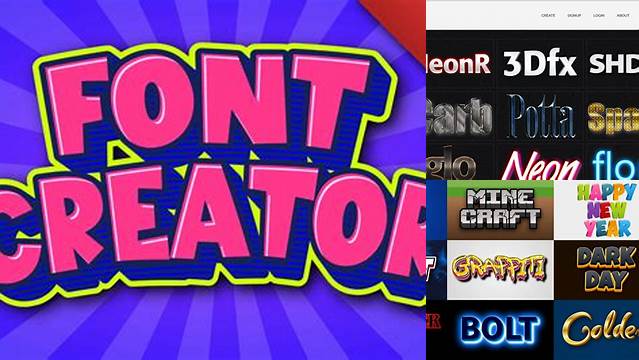
Free Online Font Editor: Create Stunning Text Designs
Hey guys! Ever felt limited by the standard fonts available on your computer? Want to add a personal touch to your designs, social media posts, or even your website? Well, you're in luck! There's a whole world of free online text font editors out there, just waiting to be explored. These incredible tools empower you to create stunning visuals and express your unique style without spending a dime. Let's dive into the exciting possibilities and discover how you can unlock your creative potential with a free online text font editor.
Why Use a Free Online Text Font Editor?
In today's digital landscape, visual communication is key. Whether you're crafting a captivating social media post, designing a professional-looking presentation, or building a brand identity, the choice of font plays a crucial role. Fonts evoke emotions, convey personality, and ultimately, influence how your message is received. While traditional design software offers a range of fonts, they often come with a hefty price tag. That's where free online text font editors come to the rescue. These platforms provide a wealth of benefits, making them an indispensable tool for anyone looking to elevate their text design game.
First and foremost, the cost-effectiveness of free online text font editors is a major draw. You can access a vast library of fonts and editing features without spending a single penny. This is particularly advantageous for students, freelancers, and small businesses operating on a tight budget. Imagine the possibilities – you can experiment with different fonts, styles, and effects without worrying about subscription fees or licensing costs. This accessibility empowers you to explore your creativity and find the perfect font to match your vision.
Beyond the financial aspect, convenience is another significant advantage. Online text font editors are typically web-based, meaning you can access them from any device with an internet connection. There's no need to download or install any software, saving you valuable storage space and eliminating compatibility issues. Whether you're working on your desktop, laptop, or even a tablet, you can easily access your projects and continue editing on the go. This seamless accessibility is a game-changer for designers and content creators who value flexibility and efficiency.
The sheer variety of fonts available through these online editors is simply astounding. You'll find everything from classic serif fonts to modern sans-serif fonts, elegant script fonts to playful display fonts. The options are virtually endless, allowing you to discover hidden gems and create truly unique typography. Many editors also offer the ability to customize fonts, adjusting parameters like size, spacing, kerning, and color. This level of control ensures that you can perfectly tailor your text to fit your specific design needs.
Furthermore, many free online text font editors go beyond basic font selection. They often incorporate a range of advanced features such as text effects, shadow manipulation, and 3D transformations. These capabilities enable you to add depth, dimension, and visual interest to your text, creating eye-catching designs that stand out from the crowd. Whether you want to add a subtle glow to your text or create a bold, impactful 3D effect, these editors provide the tools to bring your vision to life.
Finally, the user-friendliness of these platforms is a major selling point. Most free online text font editors feature intuitive interfaces that are easy to navigate, even for beginners. You don't need to be a professional designer to start creating stunning text designs. The editors often provide helpful tutorials and guides, walking you through the various features and functionalities. This accessibility empowers individuals with varying skill levels to express themselves creatively through typography.
Key Features to Look for in a Free Online Text Font Editor
Okay, so you're sold on the idea of using a free online text font editor. Awesome! But with so many options available, how do you choose the right one for your needs? Don't worry, I've got you covered. Here are some key features to look for when selecting an editor:
Font Library: This is arguably the most important factor. Make sure the editor boasts a diverse and extensive font library, covering a wide range of styles and categories. Look for a good mix of serif, sans-serif, script, display, and decorative fonts to cater to your various design needs. A search and filtering system is also crucial for quickly finding the perfect font.
Customization Options: Beyond simply selecting a font, you'll want to be able to customize it to your liking. Look for features like font size adjustment, color selection, letter spacing (kerning), line height (leading), and text alignment. The ability to bold, italicize, and underline text is also essential. The more control you have over these parameters, the more unique and personalized your typography will be.
Text Effects: This is where things get really fun! Many free online text font editors offer a range of text effects to add flair and visual interest to your designs. Look for options like shadows, glows, outlines, gradients, and textures. Some editors even offer more advanced effects like 3D transformations and reflections. These effects can dramatically enhance the visual impact of your text.
Free online text font editors are a game-changer for anyone looking to create stunning visuals and express their unique style through typography. With a wealth of fonts, customization options, and advanced features available at your fingertips, there's no limit to what you can create. Whether you're designing social media graphics, website banners, or marketing materials, these tools empower you to elevate your designs and make a lasting impression. So, what are you waiting for? Dive into the world of free online text font editors and unleash your creativity today!